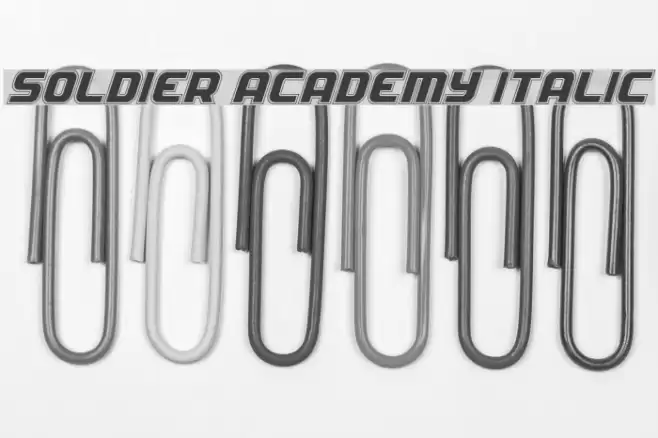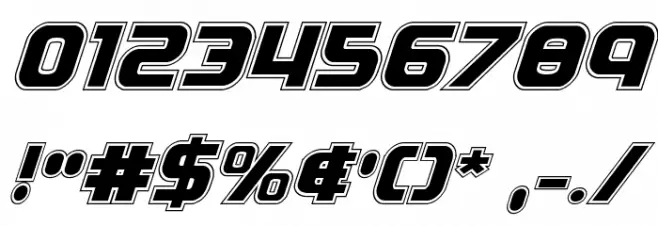
Soldier Academy Italic Font
Soldier Academy Italic Description
This font features a bold, italicized style with a strong, dynamic presence. The characters are outlined, giving them a three-dimensional effect that enhances their visibility and impact. The design is modern and sleek, with a slight slant that adds a sense of motion and energy. The uppercase and lowercase letters are consistent in style, maintaining a uniform appearance across the alphabet. The numerals and special characters are equally bold and well-defined, making them suitable for a variety of applications. The overall look is both futuristic and sporty, ideal for projects that require a bold statement.
A bold, italicized font with a modern, three-dimensional outline from Uncategorized fonts.
- Proposed Projects: Ideal for sports branding, video game titles, and dynamic advertising campaigns.